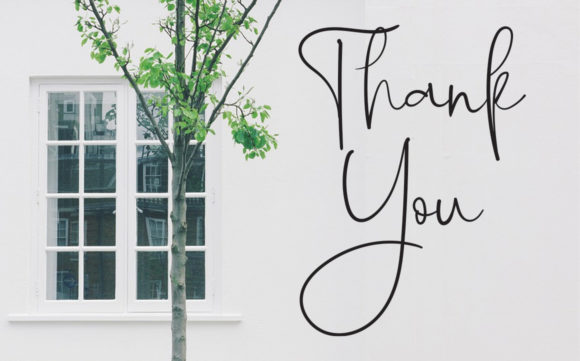
Hamington Font
db-ku.com - Script & Handwritten -- Hamington is a slim and casual handwritten font. Use it for wall displays, wedding invitations, social media post logos,